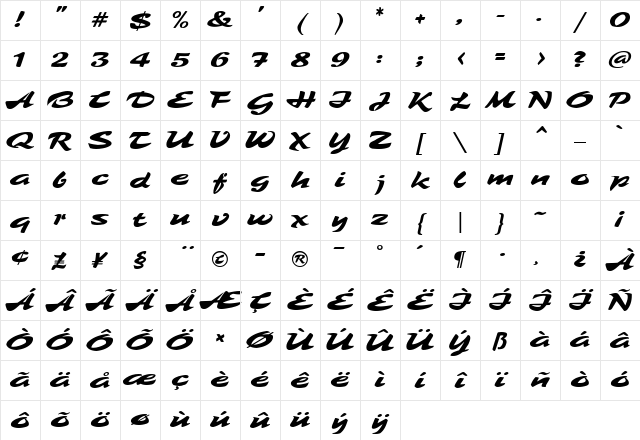
Tambo Script Free Font
Tambo Script
Style: Script
Design Context for Tambo
Tambo flows with the natural rhythm of handwritten lettering, making it ideal for designs that call for warmth and personal expression.
Font Pairing: Combine Tambo with a simple geometric sans for maximum contrast - the tension between flowing curves and clean structure is a classic typographic pairing.
Pro Tip: Use Tambo for short runs of text - names, titles, or taglines. Extended body copy in script faces tires the eye quickly.